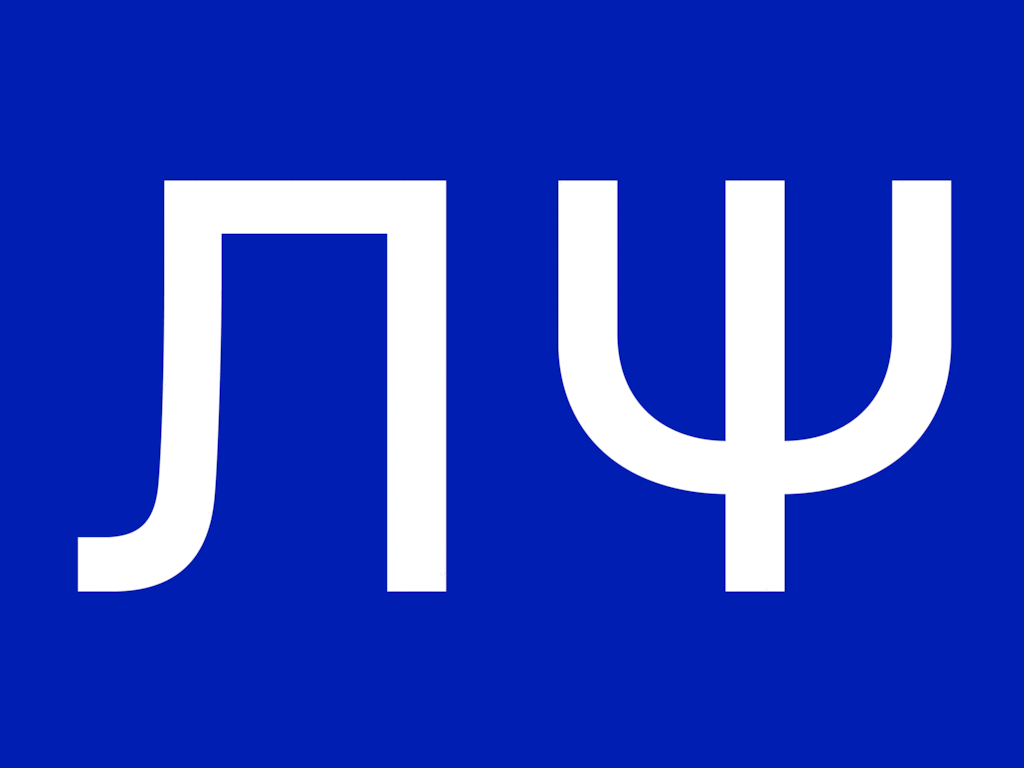
Favorit Pro
About Favorit Pro Cyrillic & Greek
ABC Favorit Pro is an extension of the ABC Favorit family that supports languages written in Cyrillic and Greek scripts. This 2019 extension is the outcome of a pair of intensive design collaborations: ABC Favorit Cyrillic was designed with Maria Doreuli and Liza Rasskazova of the Moscow-based Contrast Foundry, and ABC Favorit Greek was created by the Athens-based type designer Panagiotis Haratzopoulos.
Both extensions capture ABC Favorit’s formal idiosyncrasies, including its low contrast, tubular shapes, geometric construction, and other subtle quirks. ABC Favorit Pro allows for a host of multilingual design applications across 108 languages and nine weights, each with corresponding Italics.
ABC Favorit Latin: Dinamo (Johannes Breyer & Fabian Harb, with Erkin Karamemet, Immo Schneider, Daniel Chessari)
ABC Favorit Cyrillic: Contrast Foundry (Maria Doreuli, Liza Rasskazova)
ABC Favorit Greek: Panagiotis Haratzopoulos
Spacing and Kerning: Igino Marini
Production: Dinamo (Robert Janes) and Chi-Long Trieu